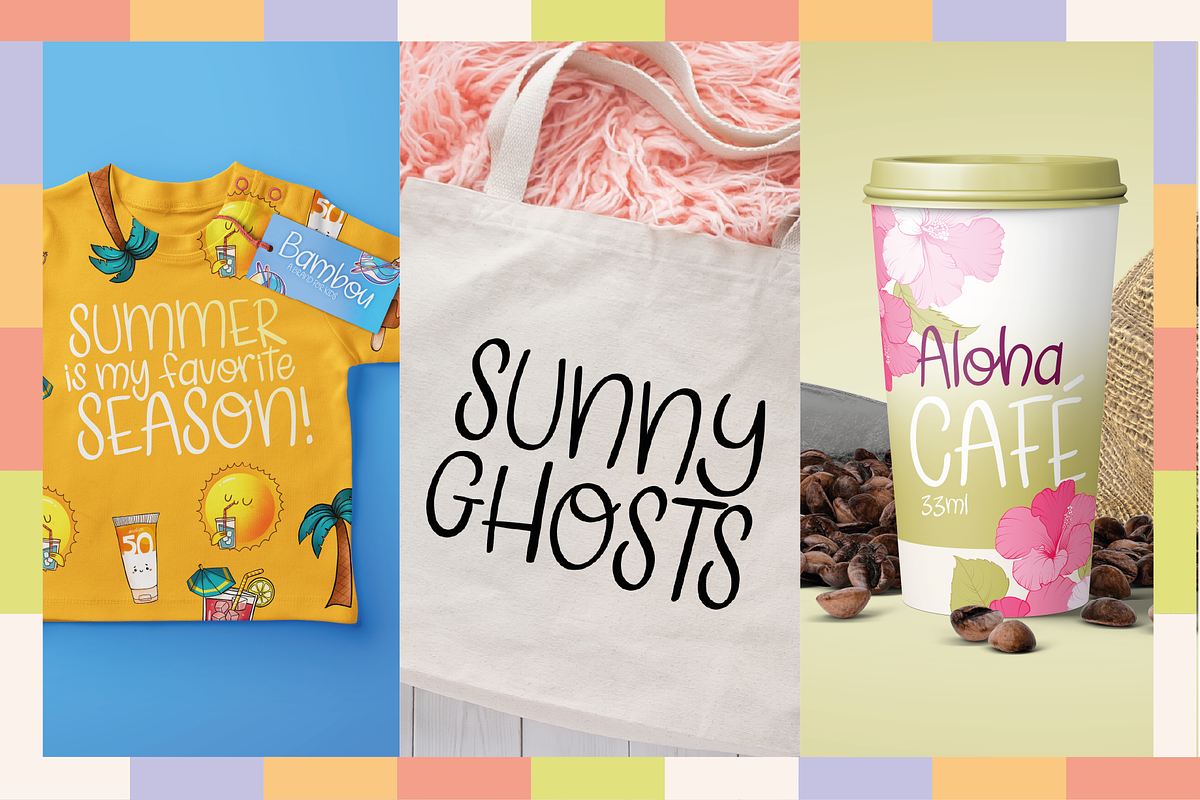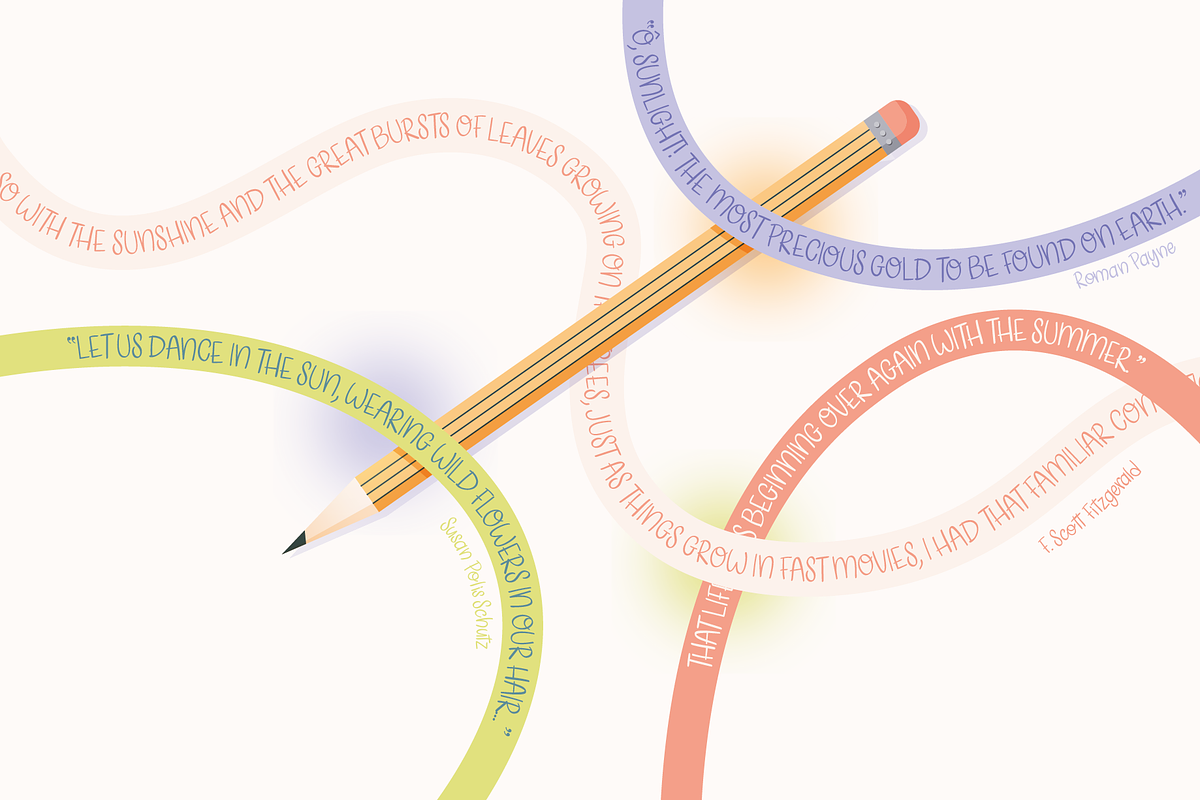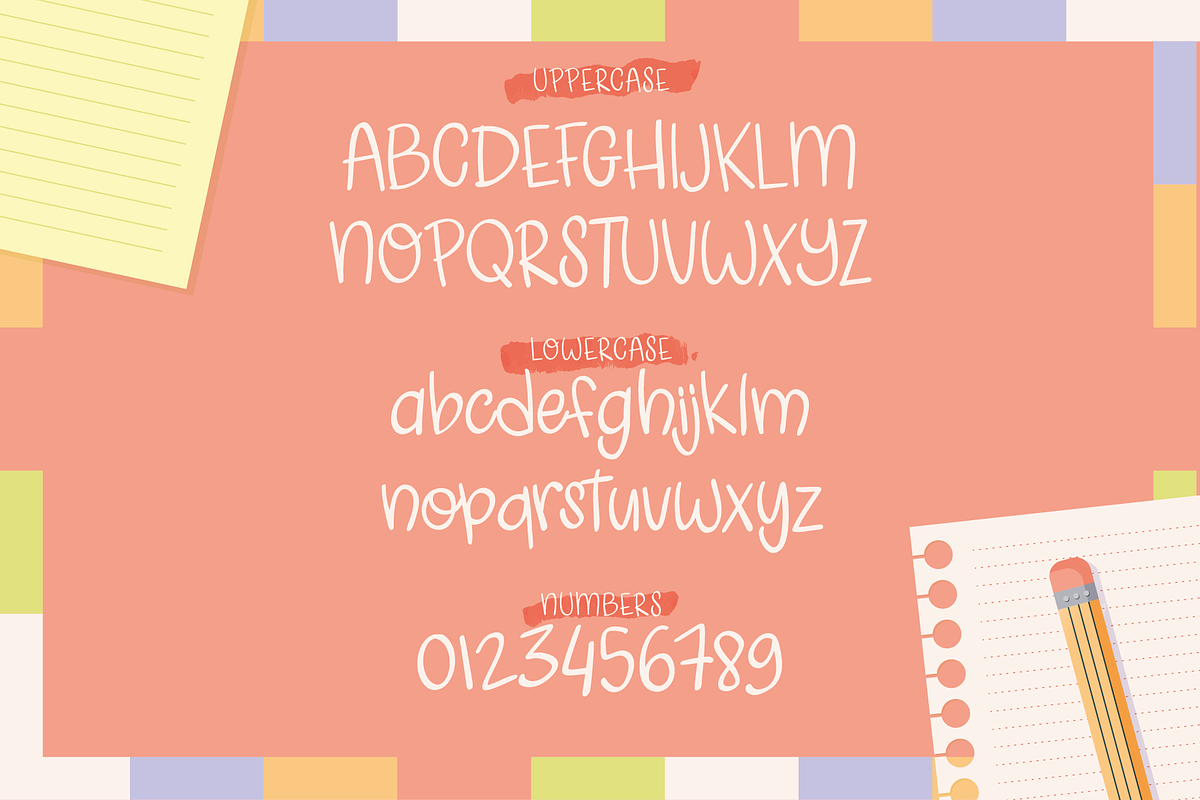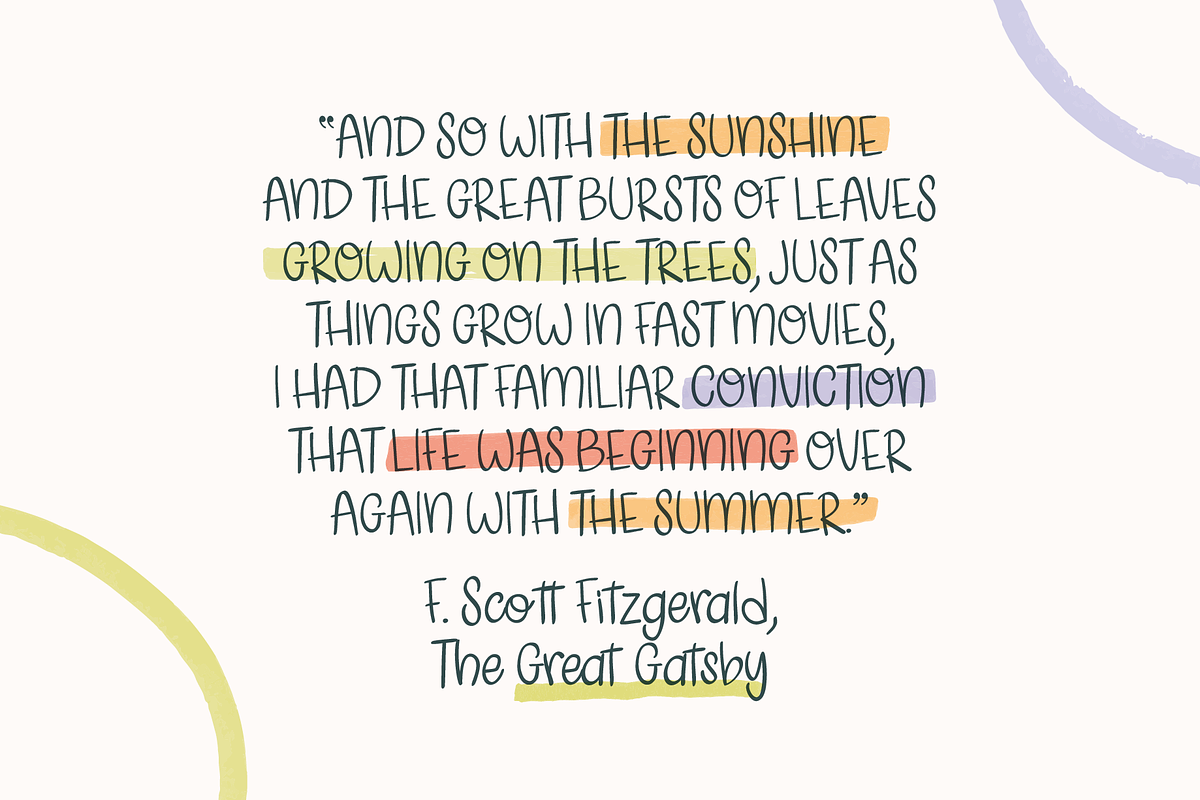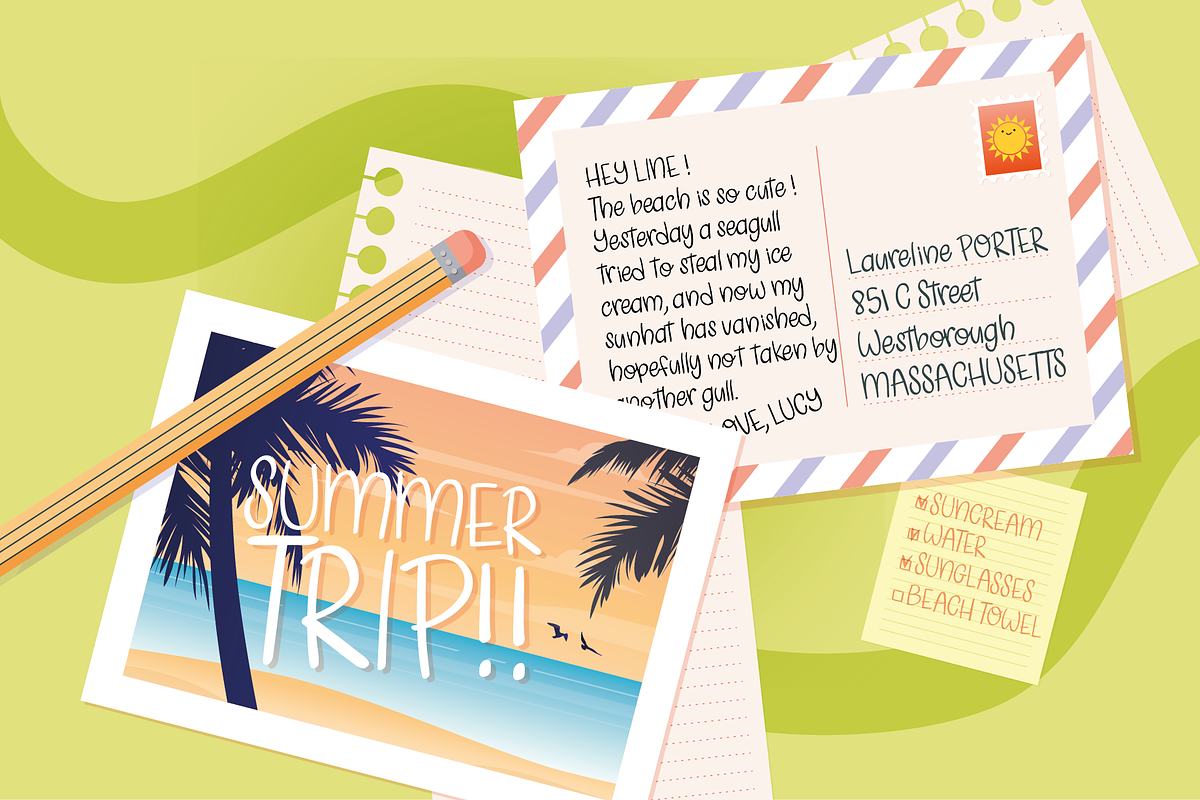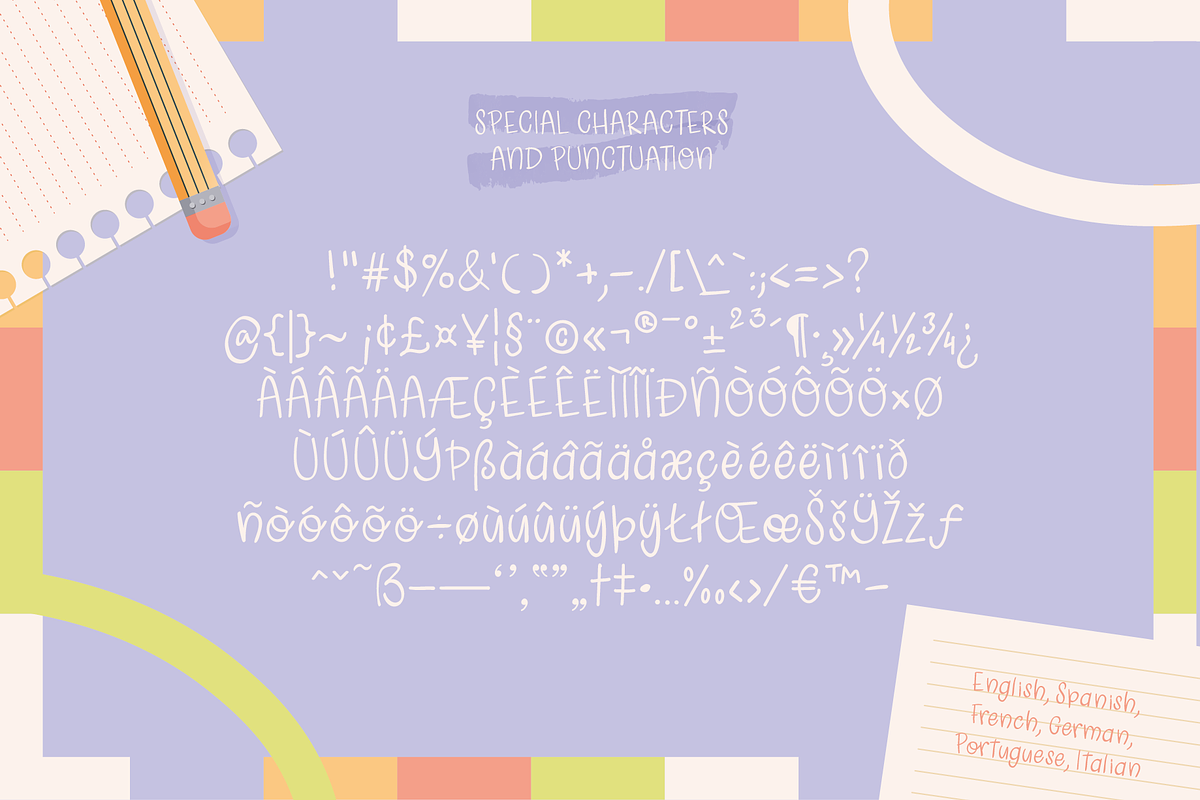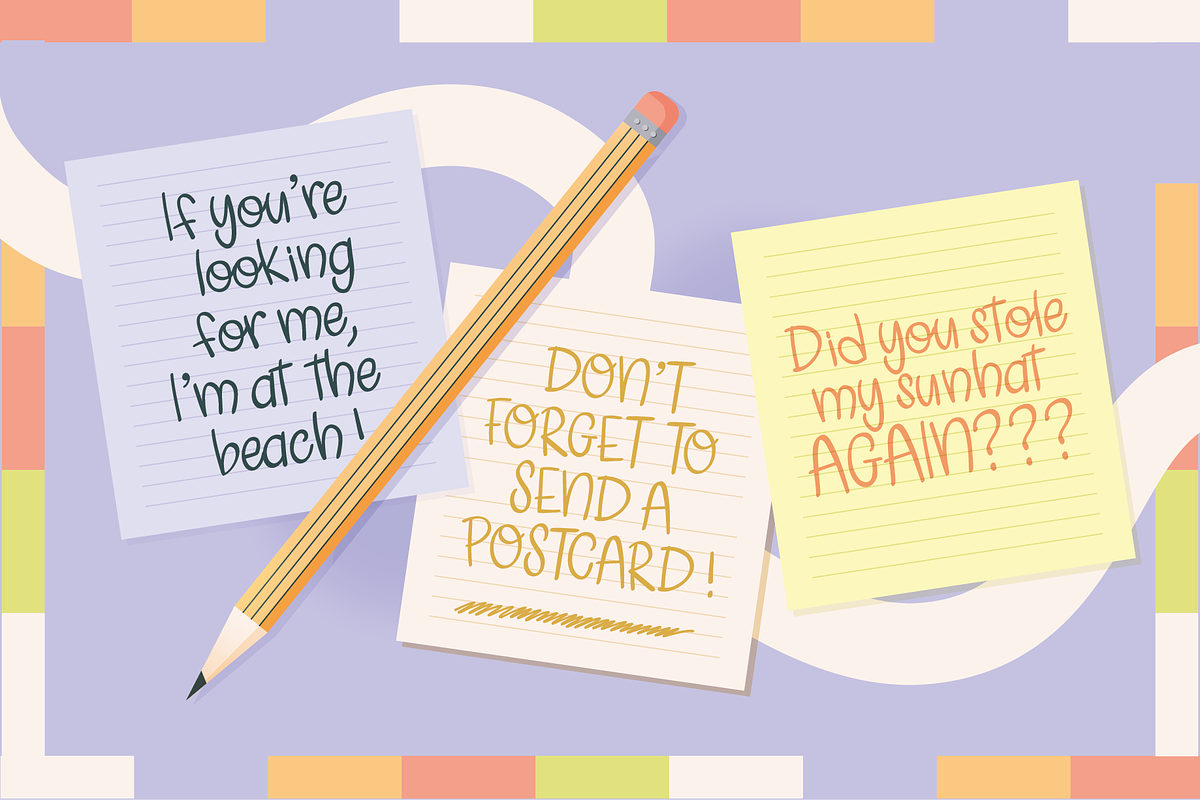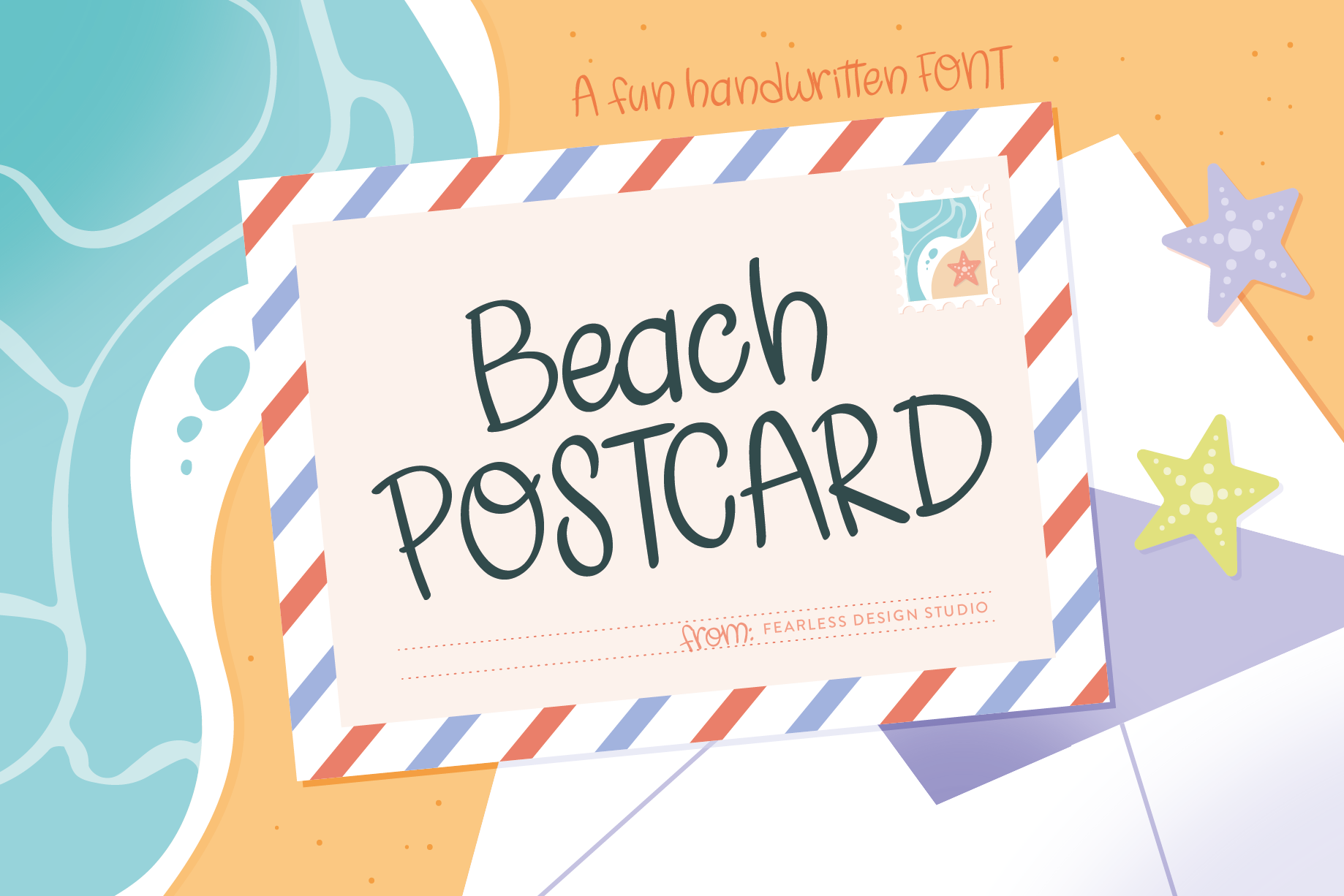
Beach POSTCARD | Handwritten font
Beach POSTCARD is a playful, handwritten font made with love (and a sprinkle of sand). Inspired by the carefree joy of writing postcards after a day at the beach. With sunny strokes and relaxed summer vibes, it’s perfect for invitations, branding, packaging, social media, kids merch, or anything that needs a warm, handwritten touch.